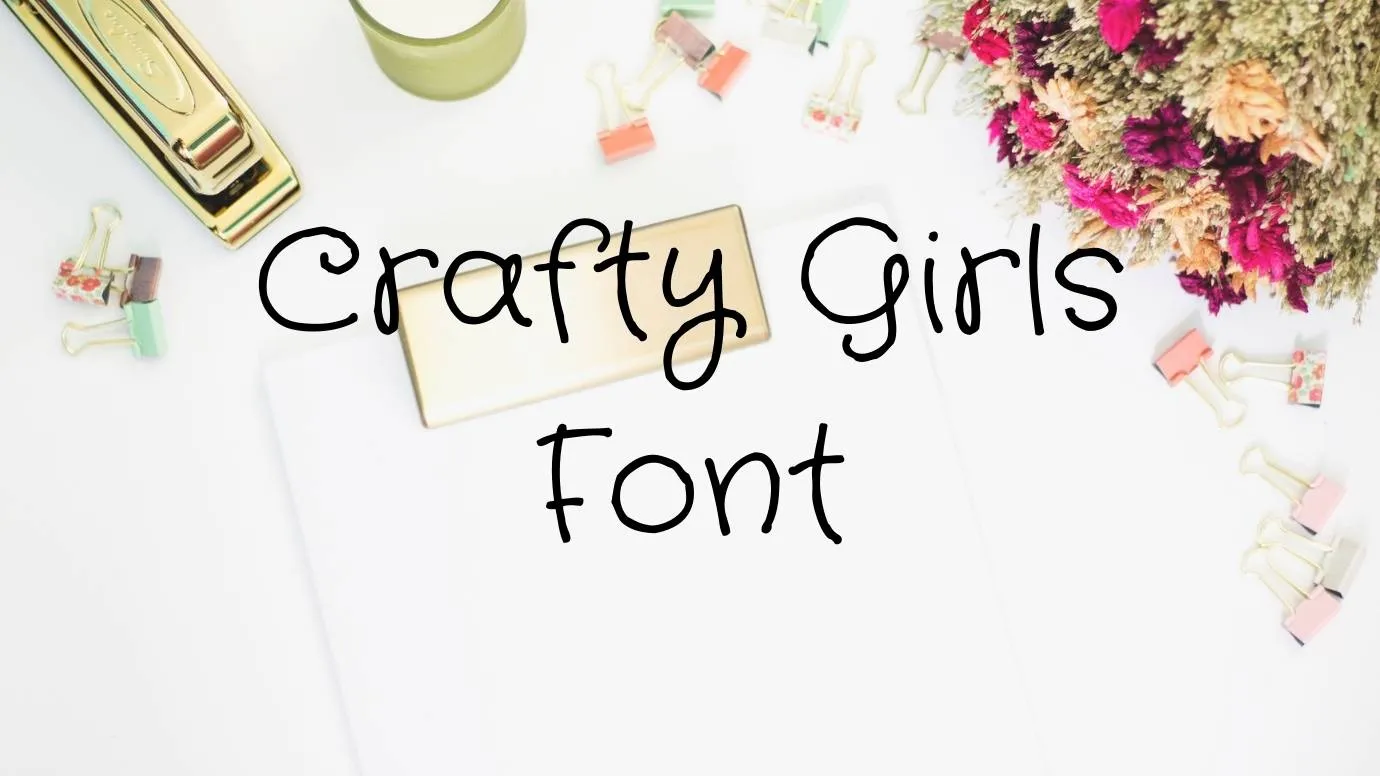
Crafty Girls Font Family is a tremendous and classy font family. This classy font was designed by Tart Workshop. This awesome typeface is available in almost more than 183 Glyphs. This cute font family comes in 228 special and strong characters.
Crafty Girls Font Family
NameCrafty Girls Font
TypeHandwritten
DesignerTart Workshop